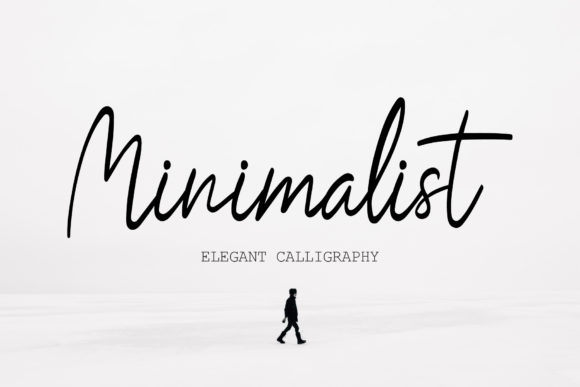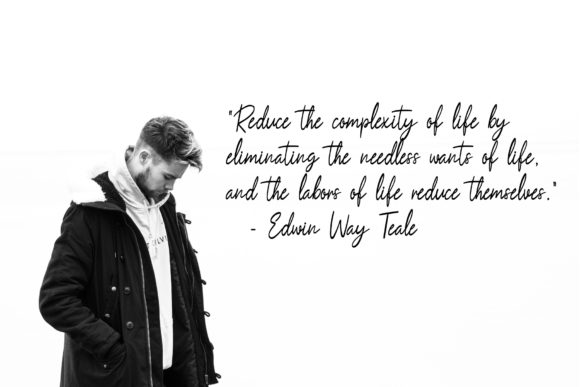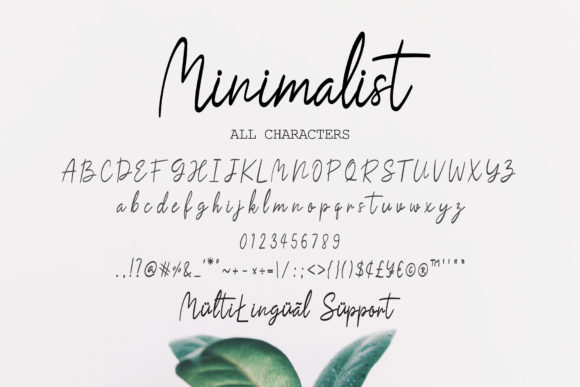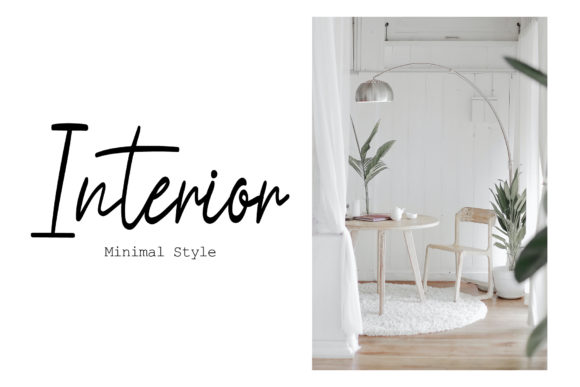
About Minimalist Font
Minimalist is a delicate and dreamy handwritten font. It is ideal for creating letters, cards, invitations, and for any crafting project that requires a romantic touch.